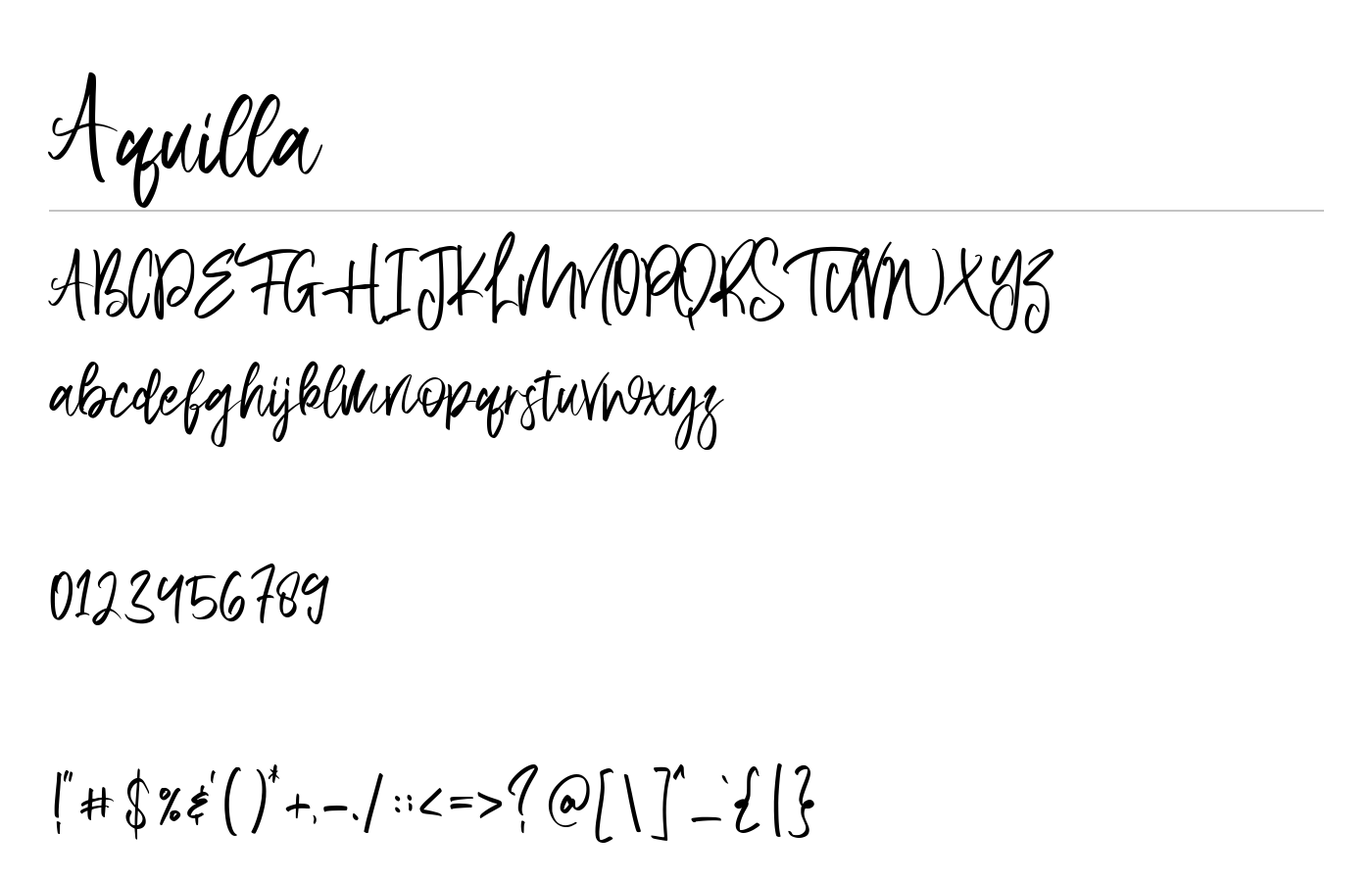
Aquilla is a playful, handwritten script font featuring smooth, flowing strokes and a lively, casual feel. Its tall, slender letterforms with varied thickness and whimsical loops make it ideal for creative branding, invitations, and stylish headlines where a personal, artistic touch is desired. This font works beautifully in informal or artistic contexts, adding charm and personality to any design.
| Font family | Aquilla Font |
| Designer | Stringlab |